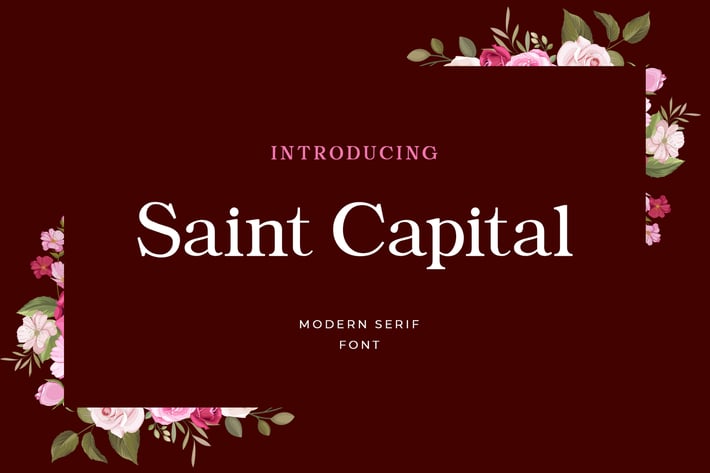
Saint Capital Modern Serif Typeface
Saint Capital is a playfully modern serif typeface. Combines classic style fonts moderated with a touch of minimalist design, produces beautiful and elegant fonts. Very suitable to be used for the manufacture quote text, logotype, header magazine, t-shirt design, business cards, wedding cards and concept handmade designs, ect.